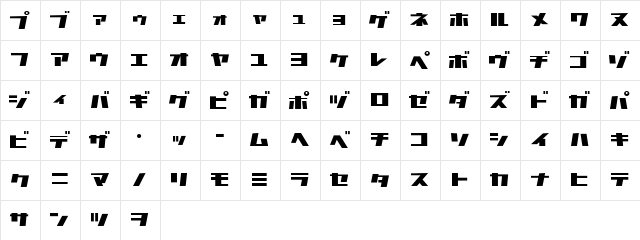
CommercialBreak Regular Font Preview
CommercialBreak Regular
CommercialBreak Regular Font Details
Design Context for CommercialBreak Typeface
CommercialBreak is a composed and adaptable typeface that performs quietly and consistently across a wide range of design contexts.